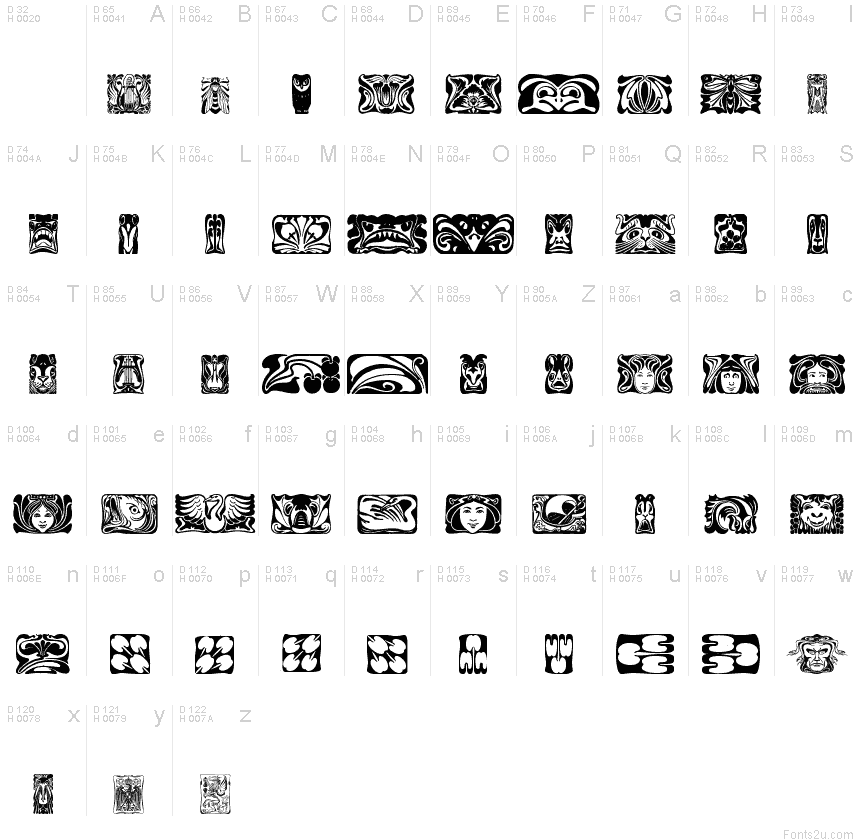
Jugendstil Ornamente
Jugendstil Ornamente font by Dieter Steffmann is a free decorative dingbat typeface. Each glyph is a self-contained Art Nouveau panel: inky black blocks packed with curling lines, mythic faces, and stylized fish that feel carved rather than drawn. Drop them in and you instantly get the look of antique bookplates, cast-iron signage, or hand-inked borders without redrawing a thing.
Using Jugendstil Ornamente, you can build lush page frames, chapter breaks, tickets, wine labels, posters, menus, or tarot-style cards that need a dramatic ornamental edge. The tiles sit neatly side by side, so they’re easy to repeat into bands or corners. For balance, pair this free font with a calm serif or sans in small sizes and let the ornaments carry the visual weight.